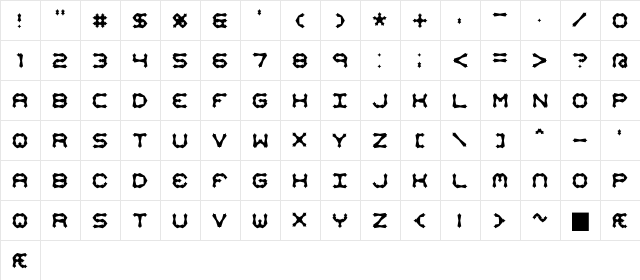
Mishmash ALT2 BRK Regular
| Foundry | ƎIGMA FONTS |
| Designer | ƎIGMA FONTS - Brian Kent |
Design Context for Mishmash ALT2 BRK Typeface
Mishmash ALT2 BRK is a composed and adaptable typeface that performs quietly and consistently across a wide range of design contexts.